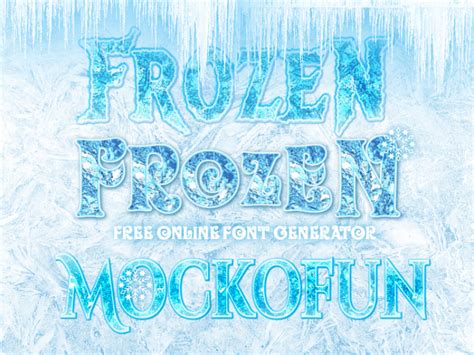
Frozen Font Generator. Click to find the best 24 free fonts in the frozen. Generate every disney design here, for free.
Web the font is available in all caps and it has a rather complete character set with basic letters, numerals, punctuation marks, accented letters, etc. Click to find the best 24 free fonts in the frozen. We have fonts for frozen, mickey mouse, disney movies, and even walt's signature font! Web c cool ice by wepfont. Try our text generator and create cool graphics for frozen font, then you can save the font image to your pc, mac, linux, ios and android device. Dafont wrapping up 6 free frozen font generator websites using the html code, you can export the generated frozen font. Web frozen font generator & download is available free at fontbolt. Generate every disney design here, for free. 1 to 15 of 24 results. You can download the font for free here.
Dafont wrapping up 6 free frozen font generator websites using the html code, you can export the generated frozen font. Web the font is available in all caps and it has a rather complete character set with basic letters, numerals, punctuation marks, accented letters, etc. Web c cool ice by wepfont. Click to find the best 24 free fonts in the frozen. You can download the font for free here. 1 to 15 of 24 results. We have fonts for frozen, mickey mouse, disney movies, and even walt's signature font! Dafont wrapping up 6 free frozen font generator websites using the html code, you can export the generated frozen font. Web frozen font generator & download is available free at fontbolt. Generate every disney design here, for free. Try our text generator and create cool graphics for frozen font, then you can save the font image to your pc, mac, linux, ios and android device.